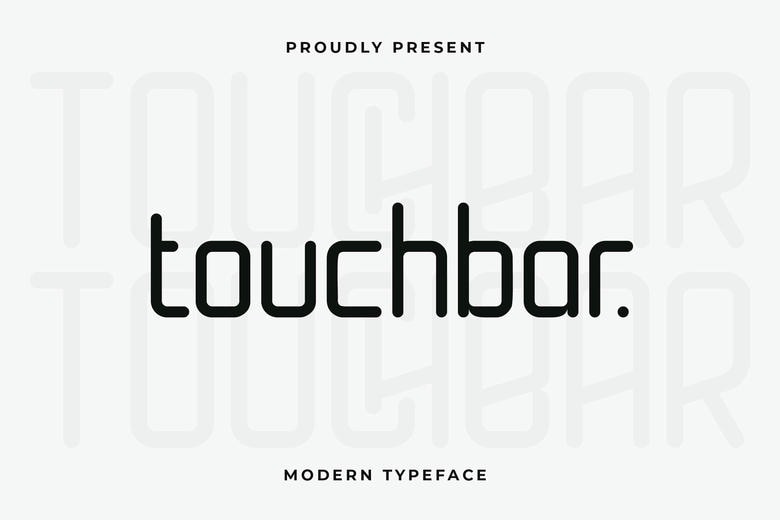
Touchbar Font
Touchbar is a modern sans serif typeface meant to be based on a high-tech and innovational technology along with the digital style. Touchbar has clean geometry and sharp edges and minimalistic built-in structure, ideal to use with tech branding, user interface, designing of apps, gaming graphics, future-style logos, and digital product packaging.
Touchbar Sans Serif Font